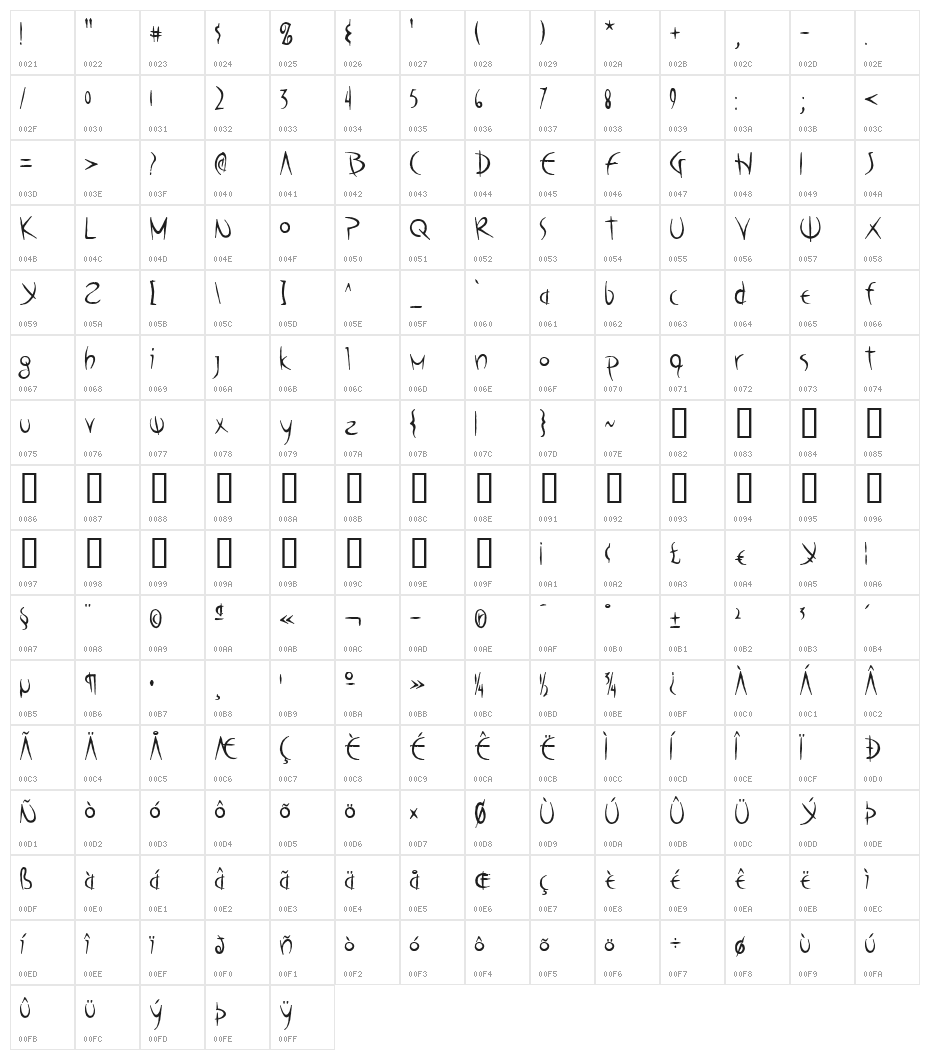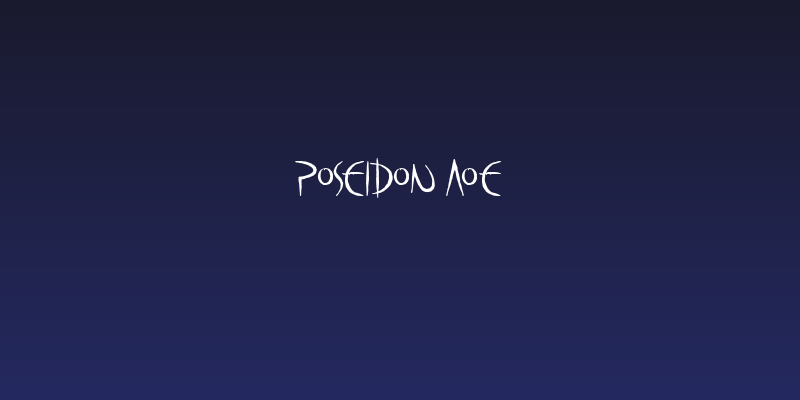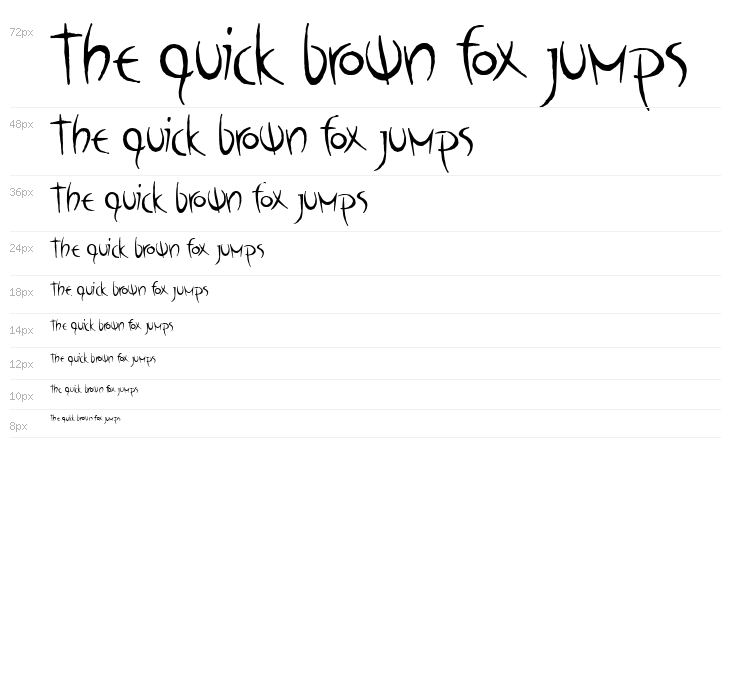
Poseidon AOE Font
Poseidon AOE Description
This font features a unique, hand-drawn style with elongated and slightly irregular strokes, giving it an organic and artistic appearance. The uppercase letters are tall and narrow, with sharp angles and varying line thickness, creating a dynamic and somewhat whimsical look. The lowercase letters maintain this playful style, with some characters featuring distinctive loops and curves. Numbers and special characters follow the same design principles, ensuring consistency throughout the typeface. The overall impression is one of creativity and individuality, making it suitable for projects that require a personal touch.
| Overall Style | Artistic |
| Use Case | Logos, Posters, Creative Branding |
| Proposed Projects | Ideal for creative projects such as art posters, album covers, and unique branding materials. |